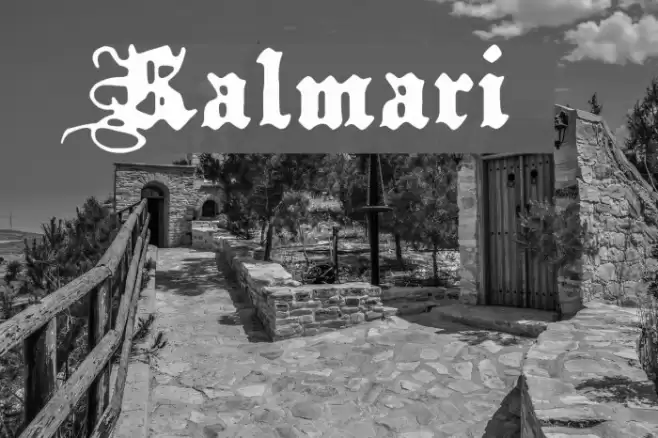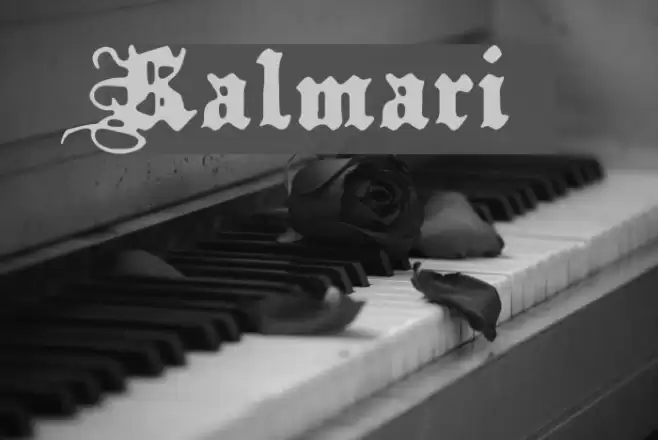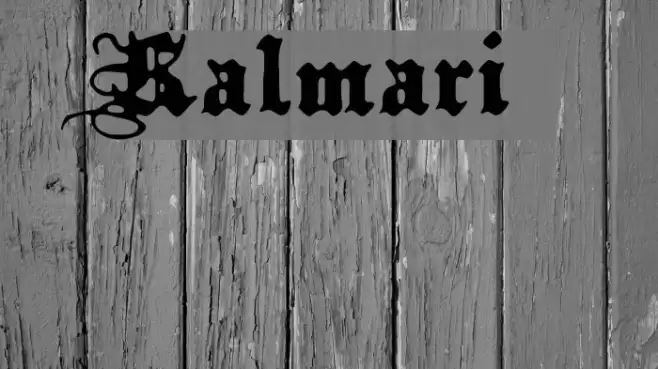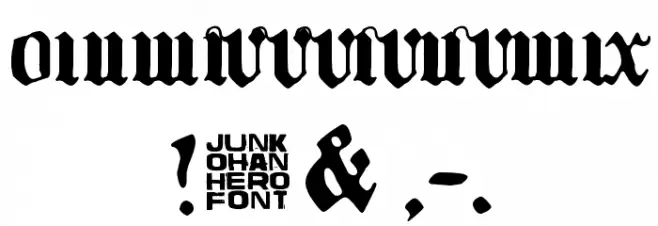
Kalmari Font
Kalmari Description
This font features a bold and intricate design reminiscent of traditional blackletter styles. The uppercase letters are adorned with elaborate flourishes, giving them a decorative and ornate appearance. The lowercase letters maintain a strong and bold presence, with sharp angles and thick strokes that convey a sense of authority and tradition. The numbers and special characters are consistent with the overall style, providing a cohesive look. This font is ideal for projects that require a historical or gothic aesthetic, such as vintage posters, book covers, or themed event invitations.
A bold, blackletter-style font with ornate flourishes and strong, angular strokes from Uncategorized fonts.
- Proposed Projects: Ideal for vintage posters, book covers, themed event invitations, and branding that requires a historical or gothic touch.
- Overall Style: Vintage
- Use Case: Logos, Headlines, Decorative text